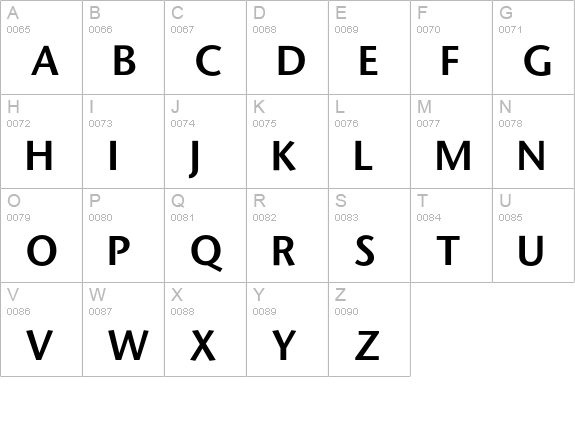
StoneSansSemiBold Font Details
The StoneSansSemiBold font is a versatile and modern typeface that strikes the perfect balance between elegance and boldness. With its clean lines and strong presence, this font is ideal for a wide range of design projects, from branding to editorial layouts. Its semi-bold weight adds a touch of sophistication while maintaining readability in both print and digital formats. What sets StoneSansSemiBold apart is that it is available for free download at FontsMarket.com, making it accessible to designers and creators looking to elevate their work without breaking the bank. This font is a valuable addition to any designer's toolkit, offering a timeless appeal that can enhance any project with its unique personality and style. Whether you're working on a logo, website, or poster design, StoneSansSemiBold is sure to make a statement and leave a lasting impression.